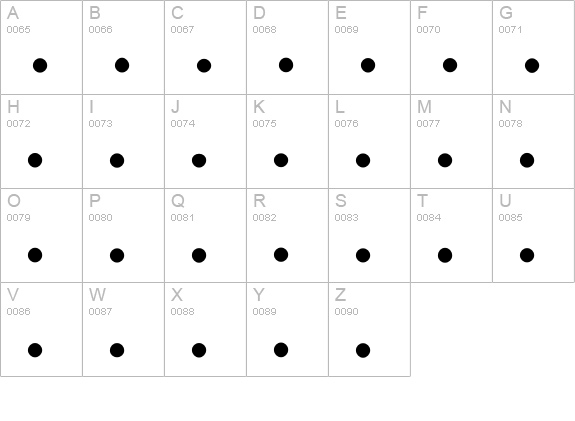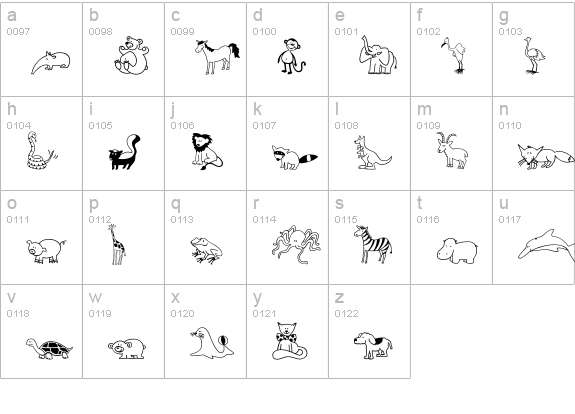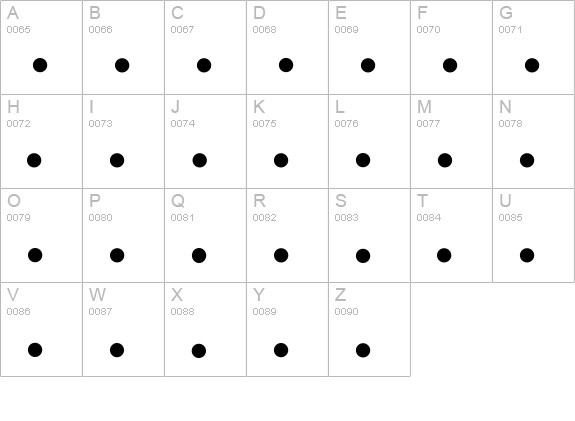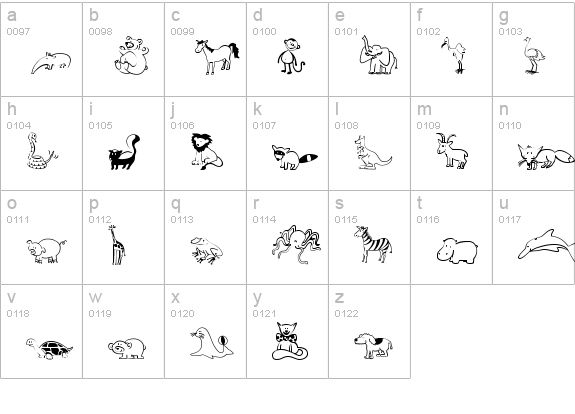
MonkeyBusiness Font Details
MonkeyBusiness font is a playful and whimsical typeface that is perfect for adding a touch of fun to your creative projects. With its quirky characters and charming design, MonkeyBusiness is sure to make your text stand out. Whether you're designing a poster, greeting card, or website, this font will bring a sense of lightheartedness to your work. The best part? MonkeyBusiness font is completely free to download at FontsMarket.com. So go ahead and add a bit of monkey business to your designs without breaking the bank. Let your creativity run wild with this delightful and unique font that is sure to bring a smile to your audience's faces.